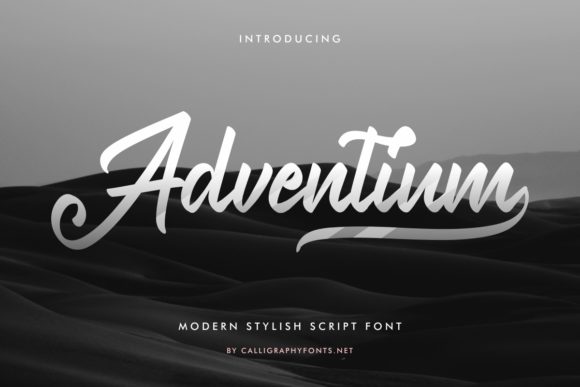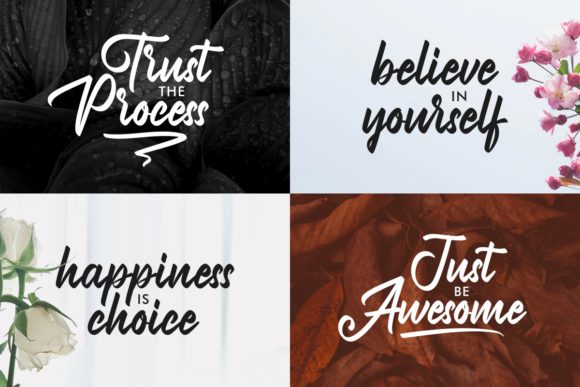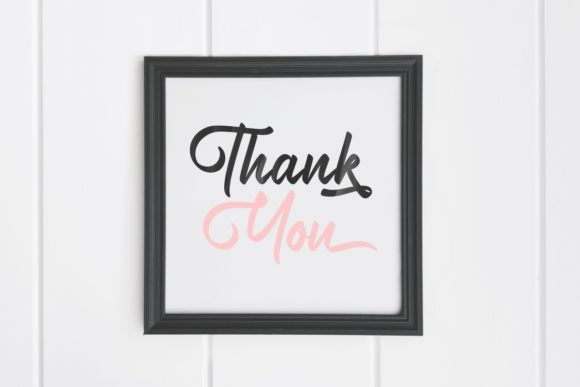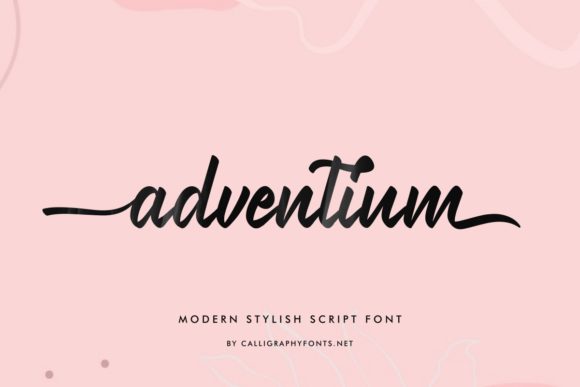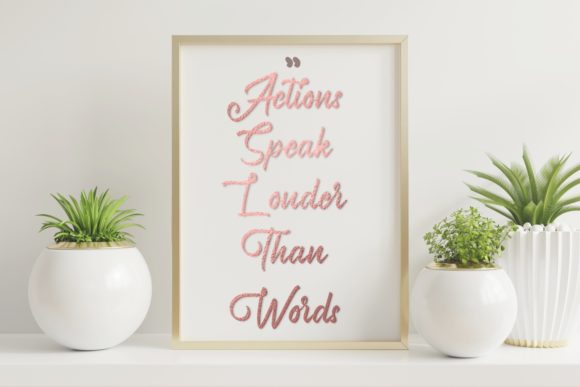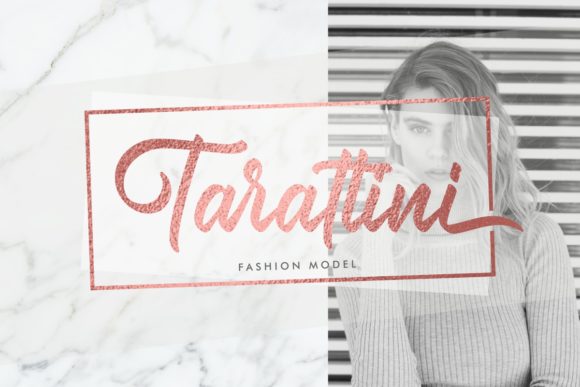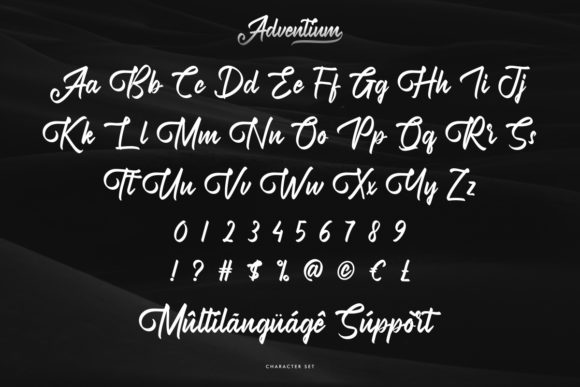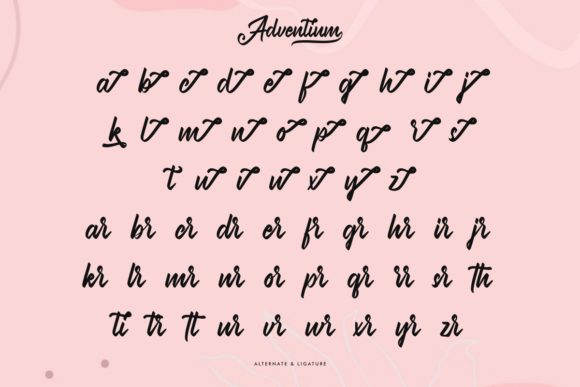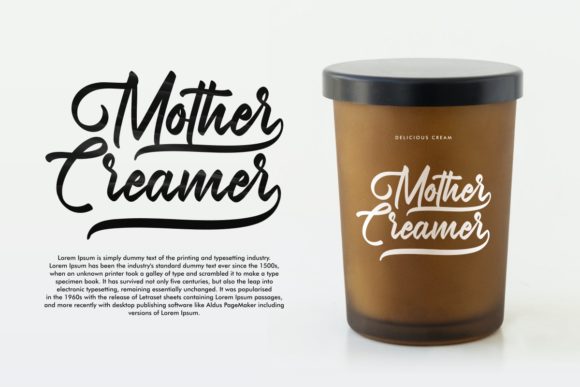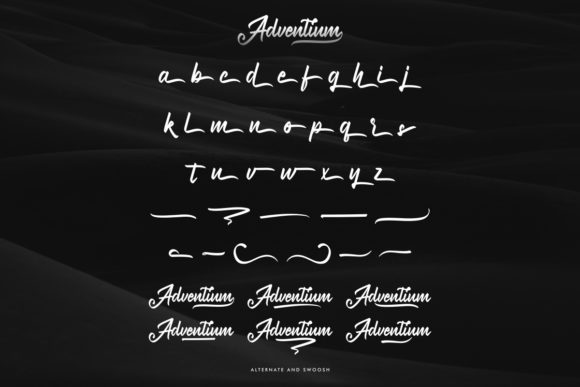
Adventium Font
About Adventium Font
Adventium is a stunning and elegant cursive calligraphy typeface that adds a touch of sophistication and elegance to any design. With its beautifully flowing characters that dance along the baseline, Adventium captures attention and exudes a sense of grace and charm.
This versatile font is suitable for a wide range of purposes, making it a valuable asset for your design projects. Whether you’re creating a logo, designing wedding invitations, crafting headlines, printing t-shirts, or working on letterheads, Adventium brings a touch of refinement and style.
The PUA (Private Use Area) encoding of Adventium allows for easy access to all the glyphs and swashes. This means you have full control over the decorative elements and alternate characters available with the font. You can customize your text with flourishes, ligatures, and swashes to create unique and visually appealing compositions.
Adventium shines in projects that require an elegant and sophisticated aesthetic. Its cursive letterforms flow seamlessly, creating a sense of movement and fluidity. This makes it a perfect choice for high-end branding, luxurious invitations, and any design that aims to convey a sense of beauty and refinement.
Whether you’re designing signage, labels, news articles, posters, or badges, Adventium adds a touch of glamour and allure. Its ornate and intricate details make each letter a work of art, captivating the viewer’s attention and leaving a lasting impression.
The dazzling curves and flourishes of Adventium bring a sense of opulence and grandeur to your designs. It evokes a feeling of timeless elegance and craftsmanship, making it an excellent choice for projects that require a touch of luxury.
Overall, Adventium is a dazzling and cursive calligraphy typeface that elevates your designs with its graceful letterforms. Its PUA encoding provides easy access to a wide range of decorative elements, allowing you to customize and enhance your text with swashes, ligatures, and other stylish flourishes. Let Adventium add a touch of sophistication and charm to your next design venture.